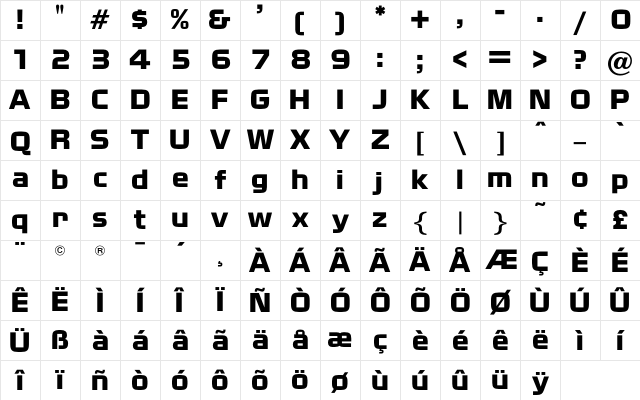
NissanOpti Regular
Design Context for NissanOpti
NissanOpti is a composed and adaptable typeface that performs quietly and consistently across a wide range of design contexts.